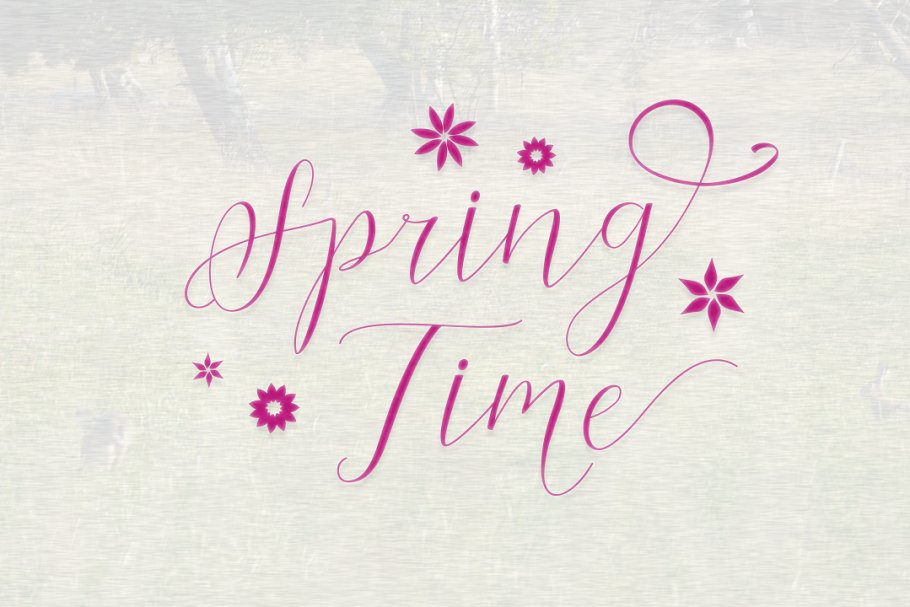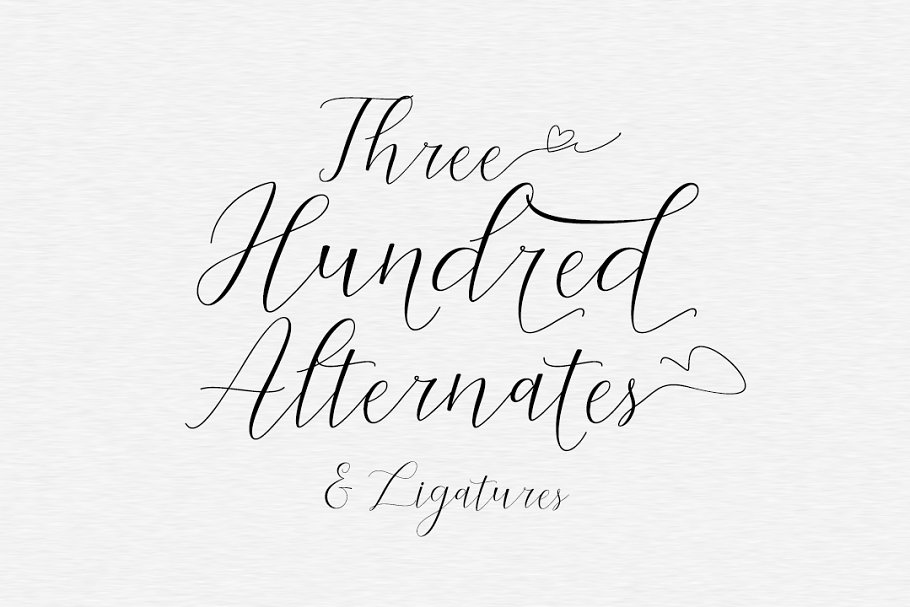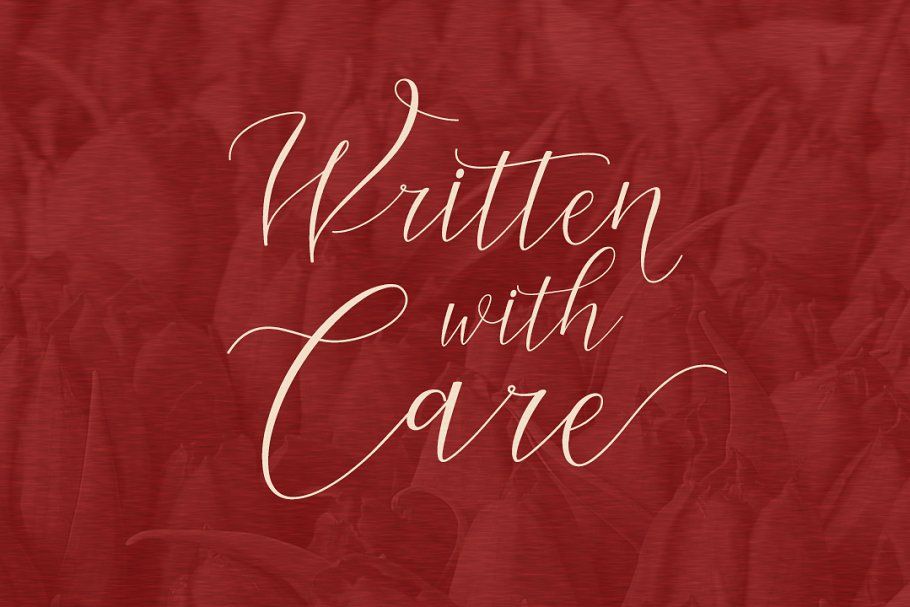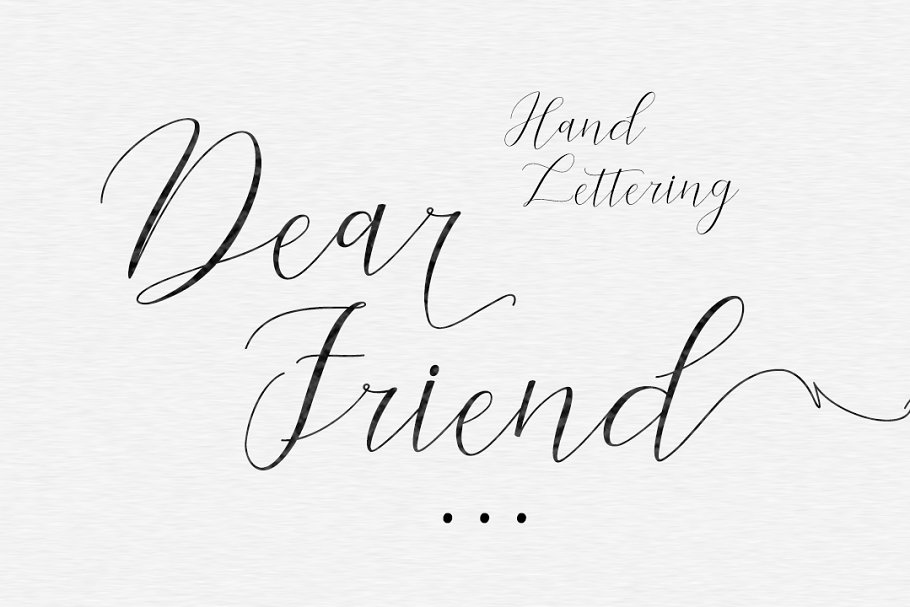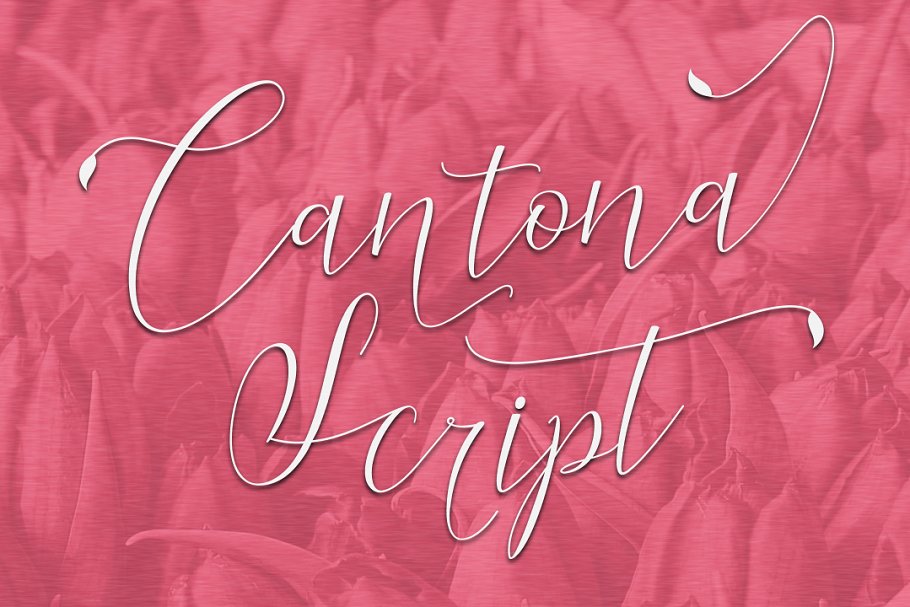
Cantona Script Font
Hi Font Lover! This is a font with simple and classy taste, comes with opentype features such as ligatures, swash, and titling. Introducing Cantona font. Cantona designed and shared by Mans Greback. Cantona Script Font is a beautiful, swirly script typeface. With its hundreds of decorative alternates, Cantona is very Suitable and applicable to create logo branding, typography design, christmas card, branding, logos, product packaging, invitation, qoutes, t-shirt, label poster etc.